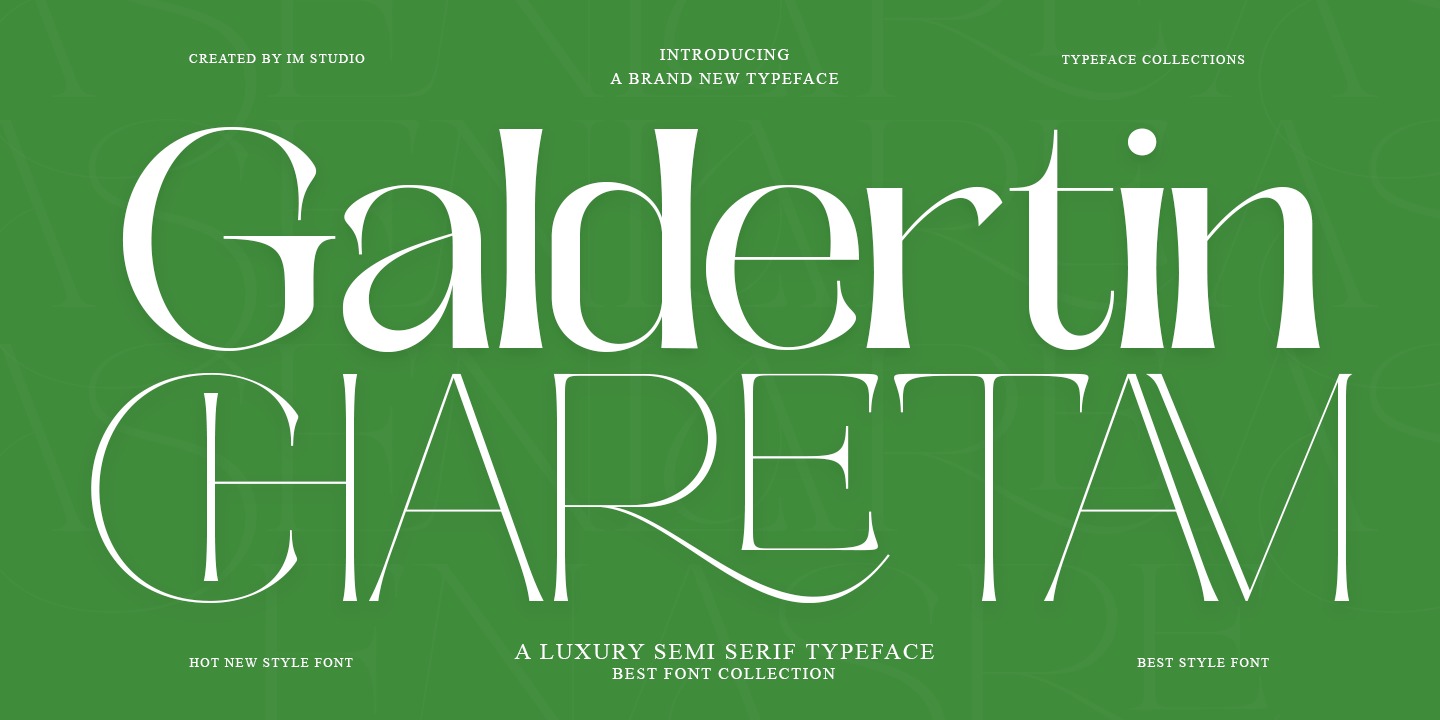
Galdertine Charetam Semi Serif Font Family
Galdertine Charetam Semi Serif Font is a premium-quality font developed to enhance your work with a polished, modern, and visually elevated look. Galdertine Charetam Semi Serif – Elegant Semi Serif with Modern Character Galdertine Charetam is an elegant serif typeface that blends timeless sophistication with a modern sensibility. Crafted with refined details and balanced proportions, it conveys a sense of luxury, style, and professionalism in every letterform. With a versatile range of weights and widths, Galdertine Charetam adapts seamlessly to a variety of design needs—from branding and editorial layouts to bold and expressive logos, packaging, and headlines. Each glyph is carefully designed with a distinctive character, giving the typeface a unique identity while maintaining excellent legibility. This makes Galdertine Charetam a great choice for designers who want to stand out while maintaining elegance and clarity. Features: 9 weights with varying widths Variable font support Elegant ligatures and stylistic alternates Multilingual support Ideal for luxury branding, fashion, editorial, and logo design Galdertine Charetam is more than just a typeface—it’s a visual statement.